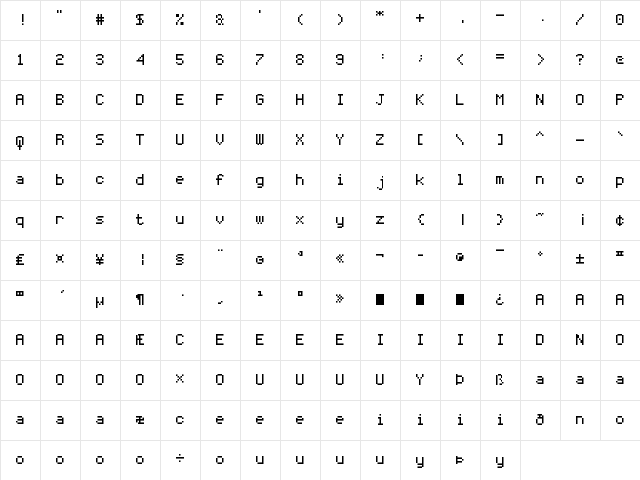
Coder's Crux Regular
| Designer | NAL |
Design Context for Coder's Crux Typeface
Coder's Crux uses fixed-width spacing throughout, giving it the structured, systematic character associated with coding environments and technical documentation.
A natural fit for code editors, technical documentation, developer-focused branding, and terminal-inspired UI.
Pro Tip: Pair Coder's Crux with a proportional sans for UI contexts where code-style labels and regular body copy need to coexist.